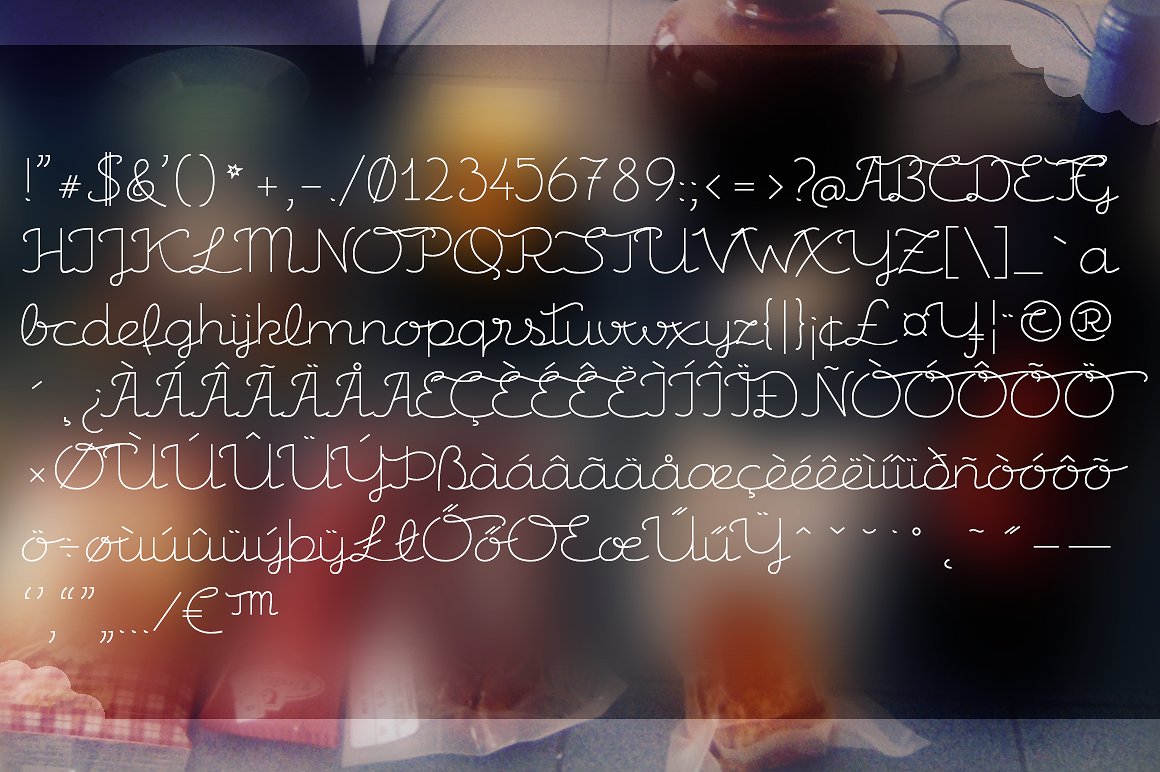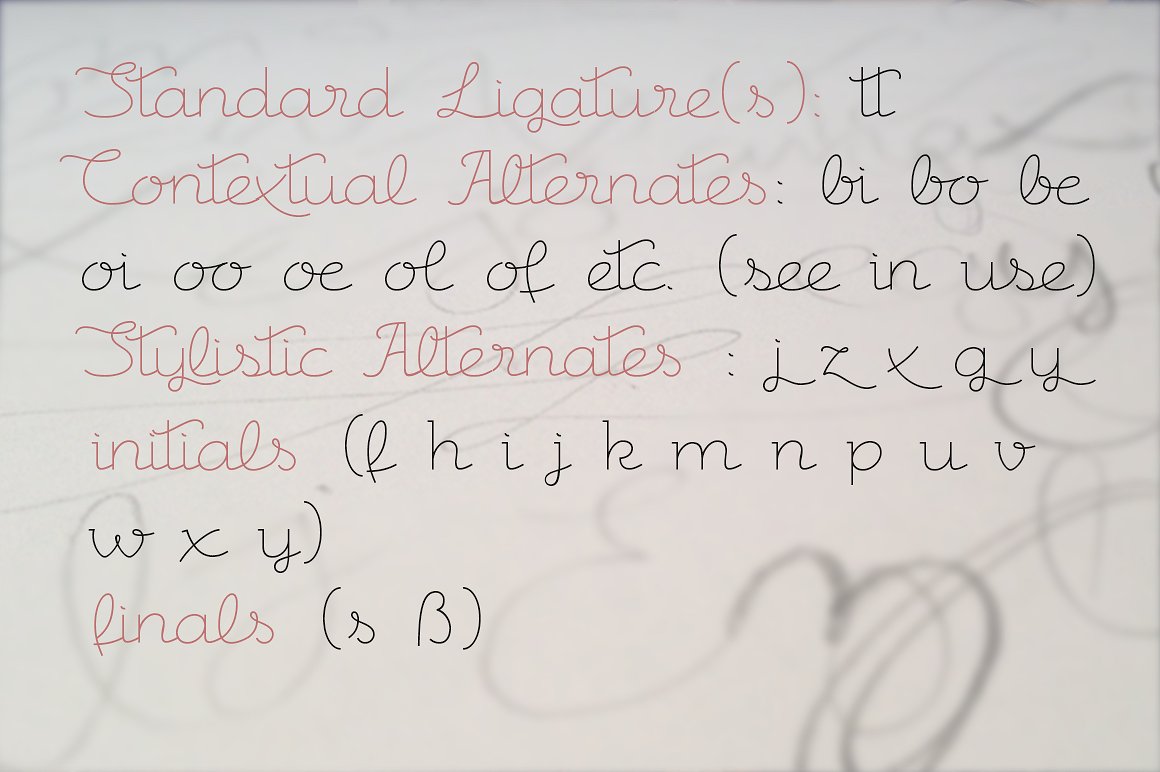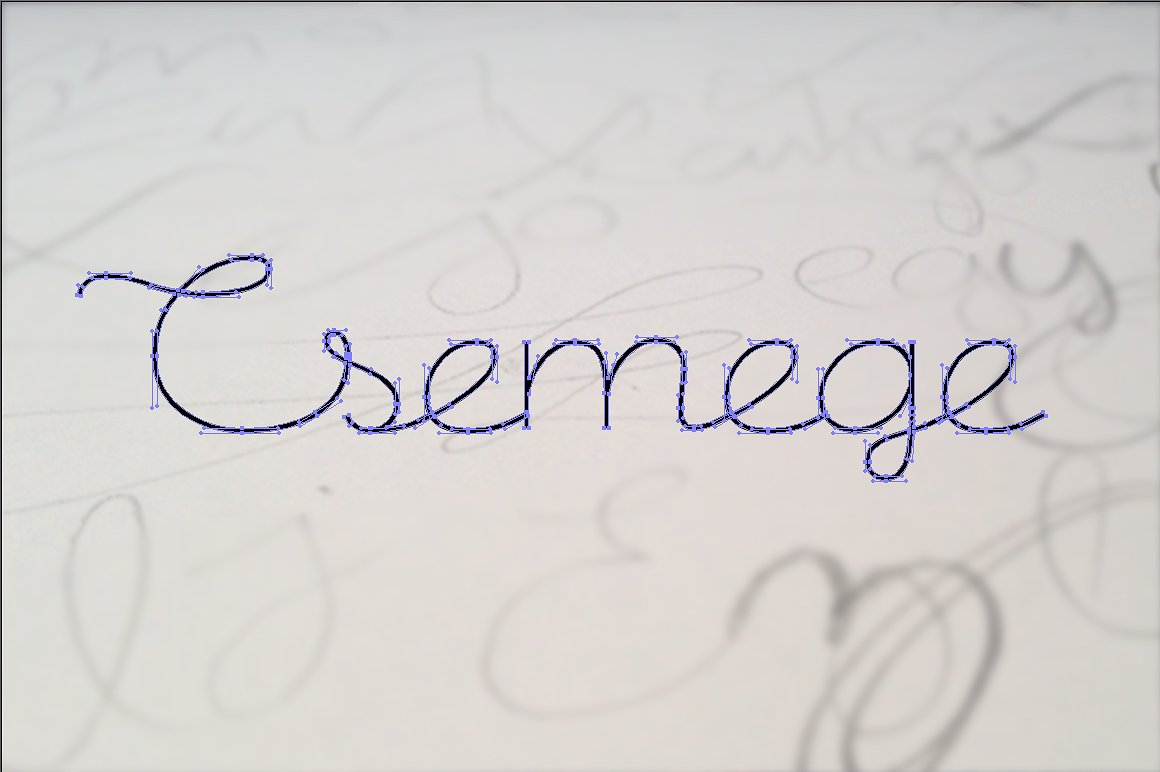
Introducing Csemege Font: A Unique and Elegant Script Inspired by Hungarian Shop Signages
Are you a designer or crafter looking for a font that can add a touch of elegance and whimsy to your projects? Look no further than Csemege Font, a beautiful and unique script inspired by Hungary’s 60’s and 70’s shop signages. In this article, we’ll take a closer look at the Csemege Font, its features, and how it can be used to elevate your designs.
The Inspiration Behind Csemege Font
Csemege Font is named after the Hungarian word for “delicatessen,” and it’s inspired by the iconic shop signages of Hungary’s food and grocery stores, restaurants, and neon light scripts from the 1960s and 1970s. The font’s creator was fascinated by the unique and elegant script used in these signages, which seemed to embody the country’s rich cultural heritage. The result is a font that is both nostalgic and modern, with a friendly yet decorative and elegant feel.
Key Features of Csemege Font
Csemege Font is a fully cursive script with several features that make it stand out from other fonts. Some of its key features include:
- Contextual Alternates: Csemege Font features contextual alternates, which allow the letters to connect smoothly and perfectly, creating a natural and fluid look.
- Stylistic Alternates: In addition to contextual alternates, Csemege Font also includes a few stylistic alternates, which provide more options for customizing the font to suit your design needs.
- Friendly and Elegant: Csemege Font has a friendly and approachable feel, making it perfect for designs that require a touch of elegance and sophistication.
Using Csemege Font in Your Designs
Csemege Font is a versatile font that can be used in a variety of design projects, including:
- Logos and Branding: Csemege Font’s unique and elegant script makes it perfect for logos and branding projects that require a touch of sophistication.
- Signage and Displays: The font’s inspiration from shop signages makes it a great choice for signage and display projects, such as menus, posters, and flyers.
- Packaging and Labels: Csemege Font’s friendly and elegant feel makes it suitable for packaging and label designs, such as food labels, product packaging, and gift wrapping.
- Digital Designs: The font can also be used in digital designs, such as social media graphics, website headers, and email marketing campaigns.
Tips for Getting the Most Out of Csemege Font
To get the most out of Csemege Font, here are a few tips:
- Experiment with Different Sizes: Csemege Font looks great in a variety of sizes, from large display fonts to smaller body text.
- Play with Color: The font’s elegant script looks great in a range of colors, from bold and bright to soft and pastel.
- Mix and Match: Don’t be afraid to mix and match Csemege Font with other fonts to create a unique and interesting design.
Csemege Font is a unique and elegant script that is inspired by Hungary’s iconic shop signages. With its contextual alternates, stylistic alternates, and friendly yet decorative feel, it’s perfect for designers and crafters looking to add a touch of sophistication and whimsy to their projects. Whether you’re working on a logo, signage, packaging, or digital design, Csemege Font is a great choice. So why not give it a try and see how it can elevate your designs?